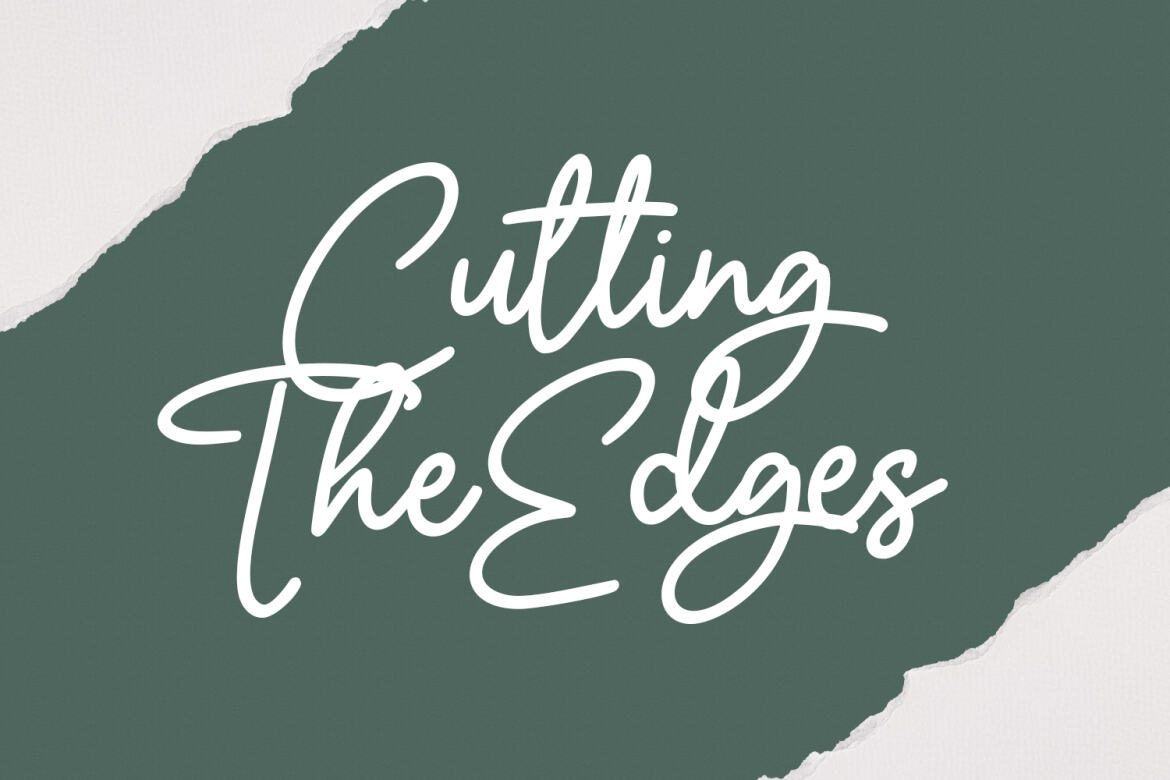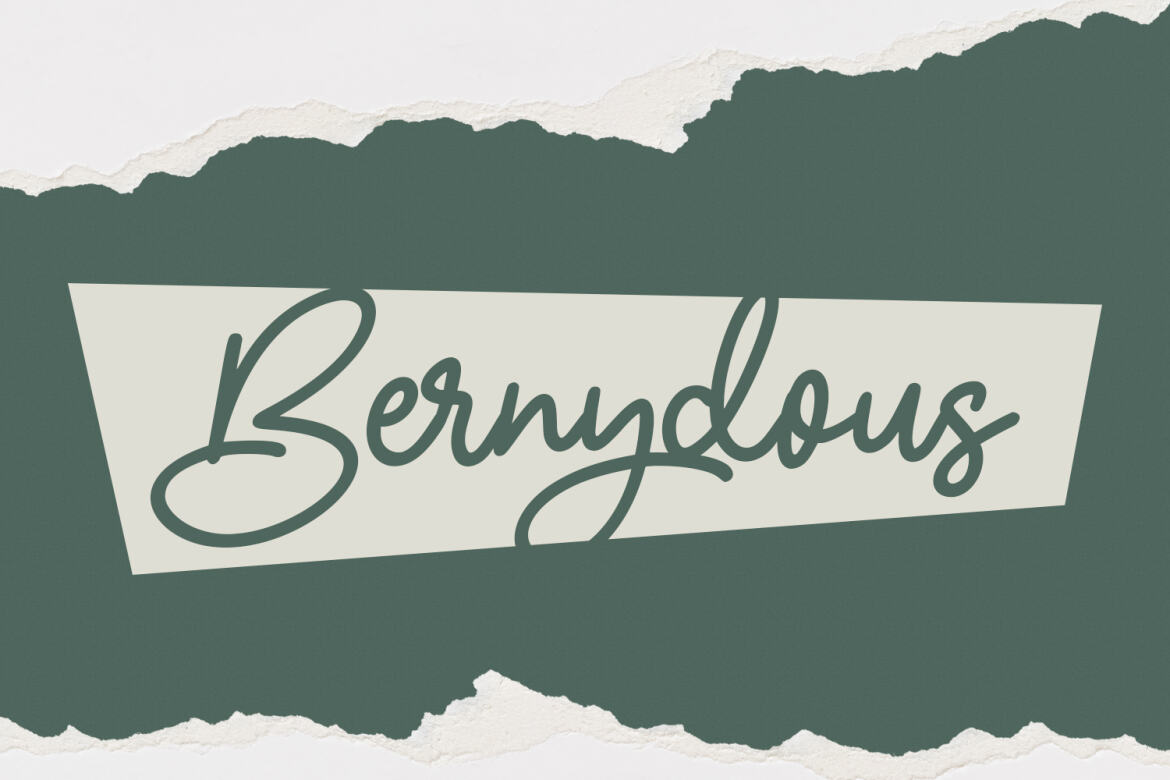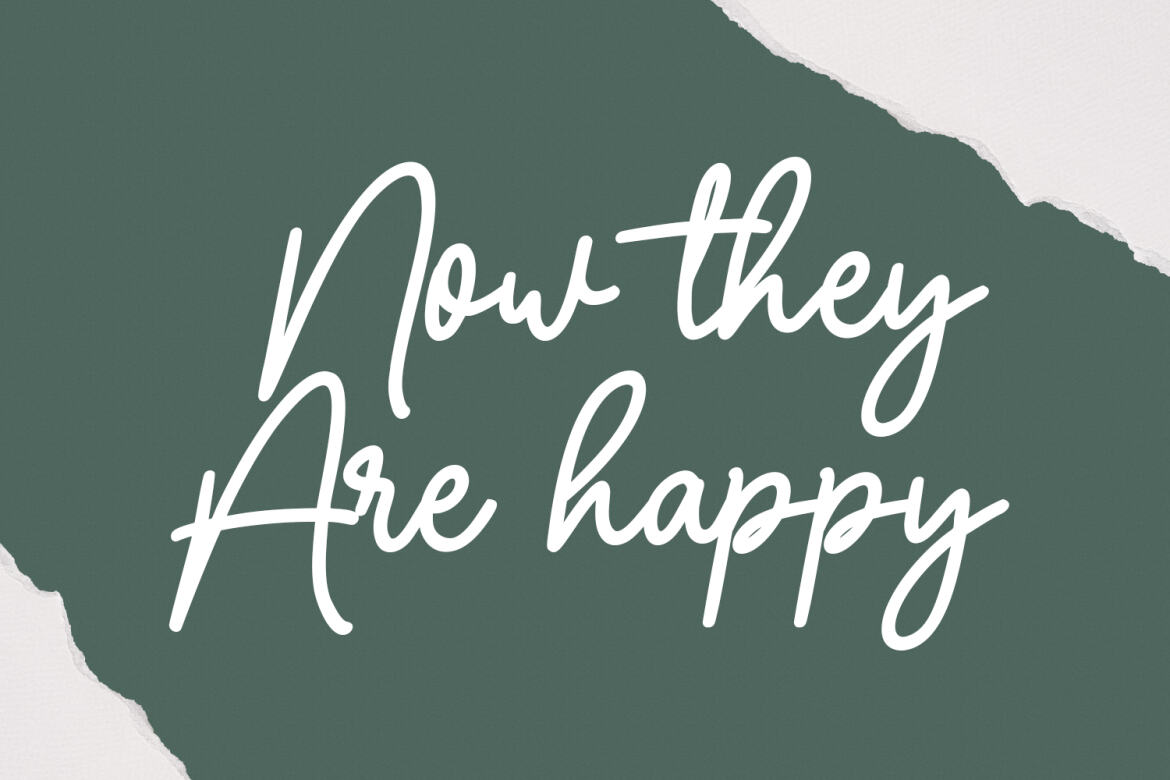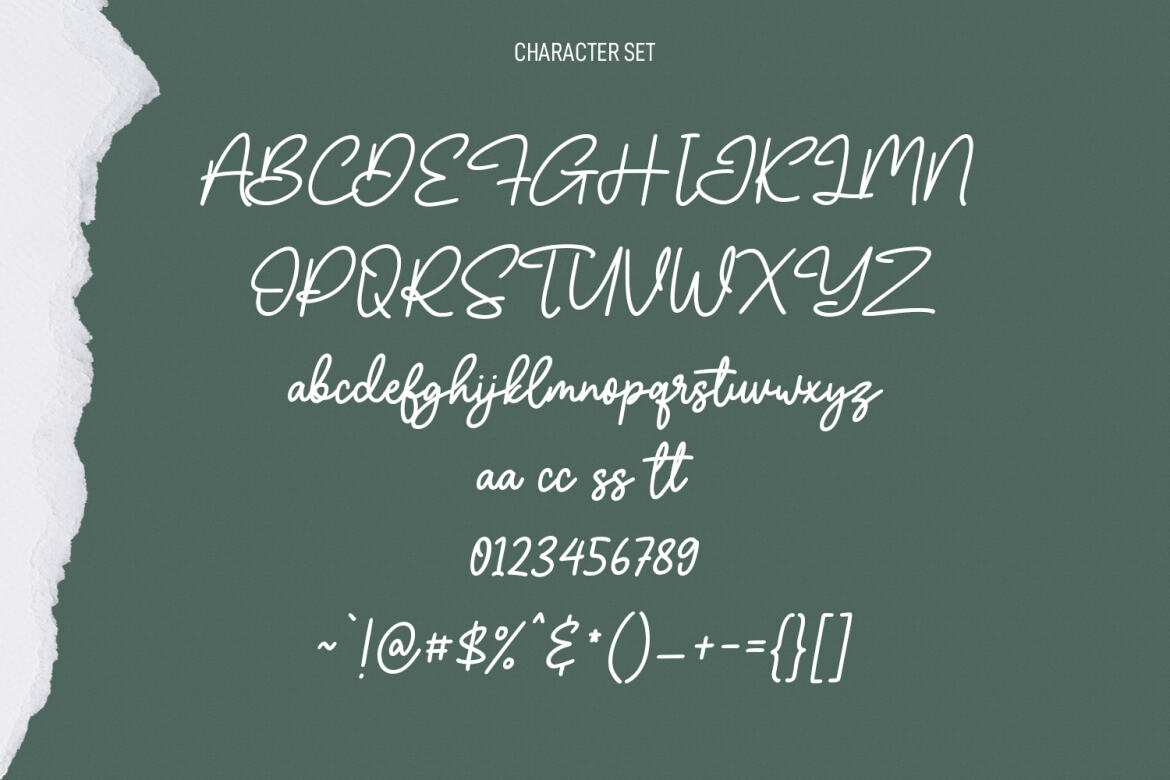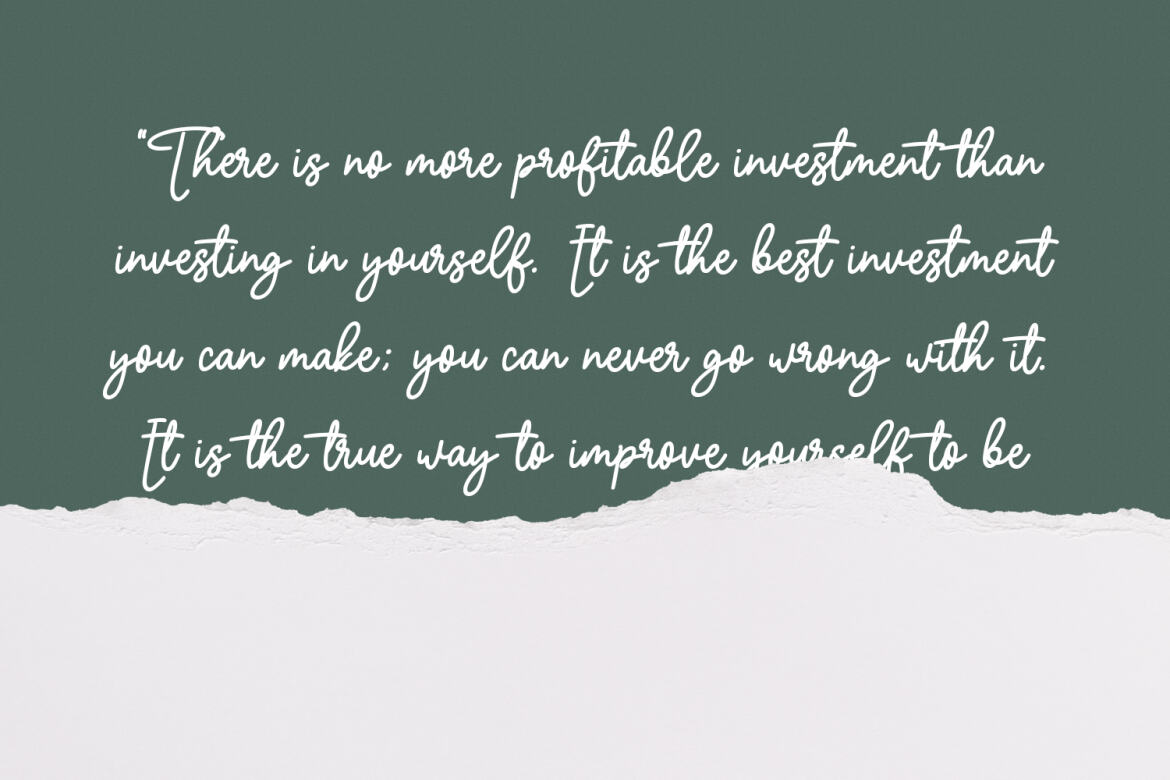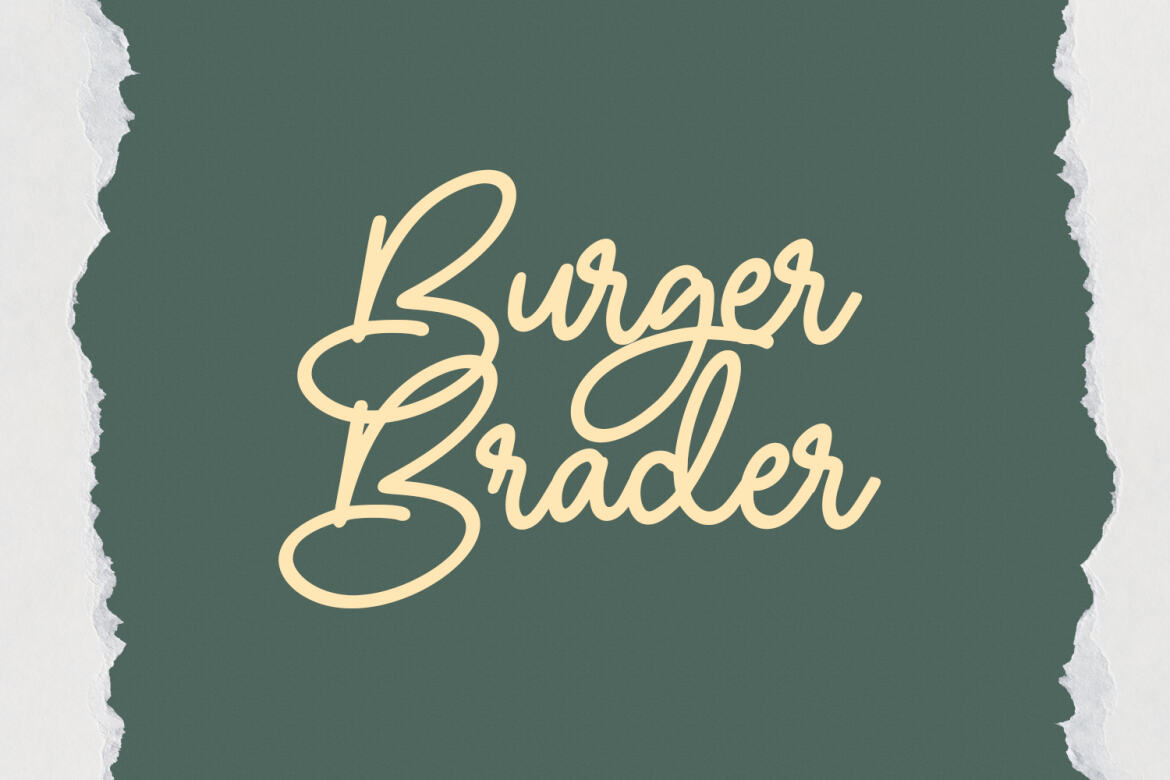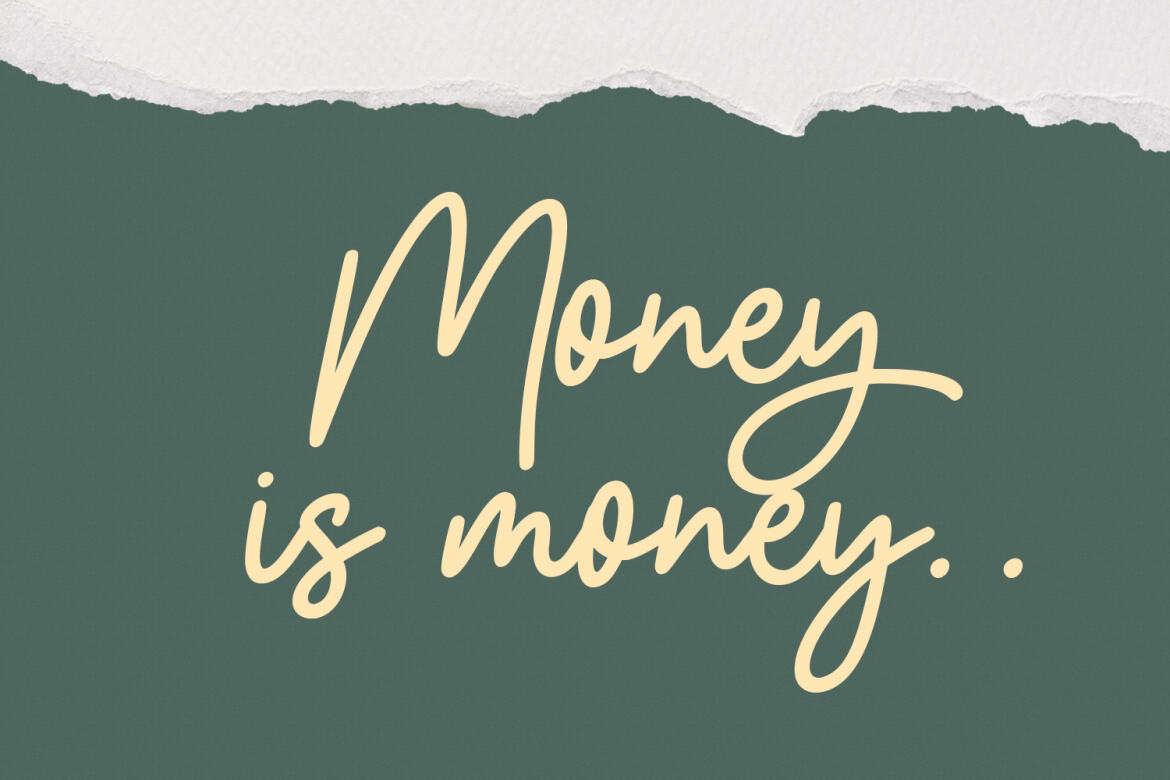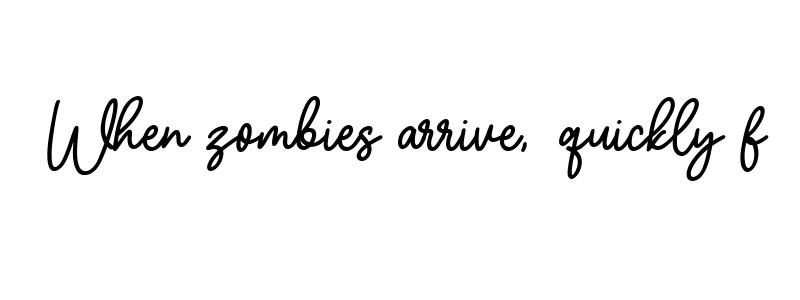
Olliverya Monoline FREE Script Font
Olliverya
Olliverya is a modern unique script font. With regular mono-line stroke, fun character with some of ligatures. To give you an extra creative work. Olliverya font support multilingual more than 100+ language. This font is good for logo design, Social media, Movie Titles, Books Titles, a short text even a long text letter and good for your secondary text font with sans or serif. Make a stunning work with Olliverya font.